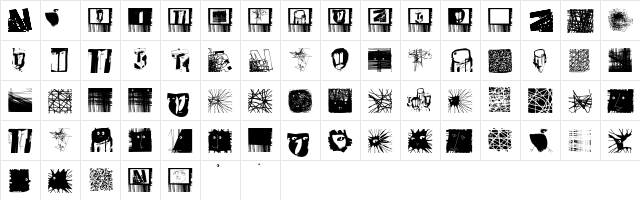
MSketchesTwo Regular
Regular ·  Manfred Klein ·
Design Context for MSketchesTwo Typeface
MSketchesTwo is a composed and adaptable typeface that performs quietly and consistently across a wide range of design contexts.